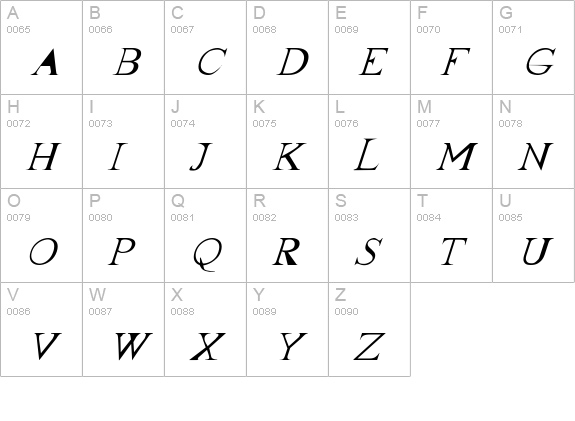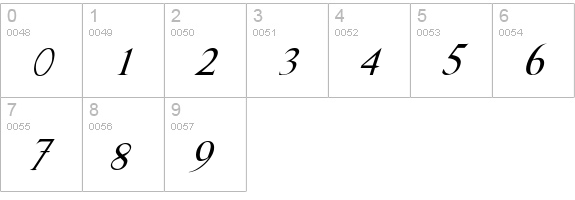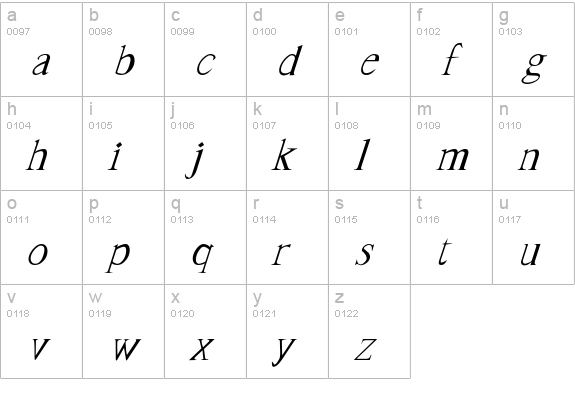
Blankboxer-Italic is a distinctive, italic variant in the Blankboxer typeface family \xE2\x80\x94 well suited to design and typography projects.
Blankboxer-Italic is a stylish and modern font that exudes elegance and sophistication. With its sleek and slanted design, it adds a touch of uniqueness to any project. This italic font is perfect for creating eye-catching headlines, logos, invitations, and more. The best part about Blankboxer-Italic font is that it is completely free to download. You can easily access this stunning font at FontsMarket.com and start using it in your designs right away. Don't miss out on this fantastic opportunity to enhance your projects with this stunning typeface. Download Blankboxer-Italic now and elevate your designs to the next level!